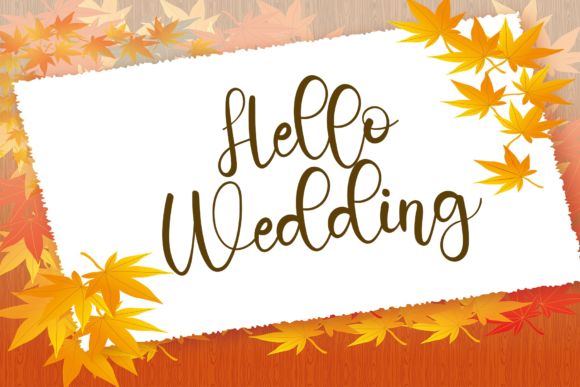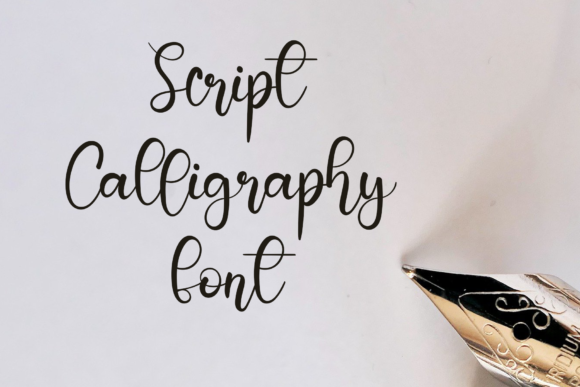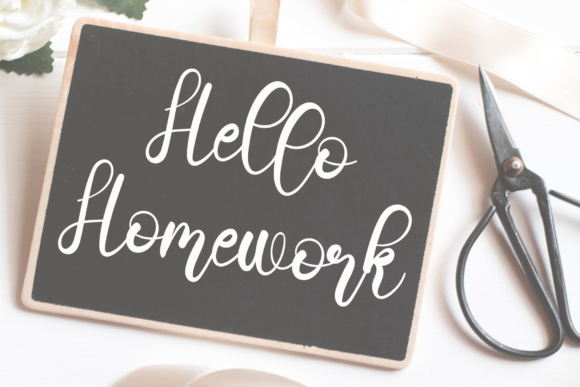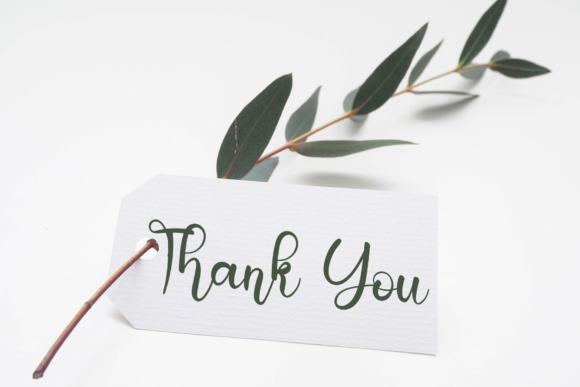
Gnome Font: Elevate Your Designs with a Touch of Elegance
Are you on the hunt for a font that exudes sophistication, elegance, and a dash of modern flair? Look no further than the Gnome Font. This exquisite handwritten font is meticulously crafted to capture the essence of calligraphic artistry while maintaining a fresh and contemporary feel. In this article, we’ll dive into the world of Gnome Font, exploring its features, benefits, and uses, making it a must-have for designers and crafters alike.
The Art of Gnome Font
Gnome Font is a masterclass in typographic design, boasting a unique blend of classic calligraphic influences and modern sensibilities. Its elegant strokes, precise letterforms, and flowing connections make it an instant favorite among designers and typography enthusiasts. Whether you’re working on a branding project, crafting a beautiful wedding invitation, or creating engaging social media content, Gnome Font is sure to elevate your designs to new heights.
What Makes Gnome Font Special?
- Exquisite Handwritten Style: Gnome Font’s handwritten aesthetic lends a personal touch to any project, making it perfect for designs that require a human touch.
- Classy Calligraphic Influences: The font’s calligraphic roots add a level of sophistication and elegance, ideal for high-end branding, luxury packaging, and refined editorial content.
- Contemporary and Fresh: Gnome Font’s modern twist ensures it feels fresh and relevant, making it suitable for a wide range of applications, from digital media to print materials.
- Versatile and Adaptable: With its clear and legible design, Gnome Font can be used in various contexts, including headings, body text, and even display text.
Gnome Font offers numerous benefits for designers and crafters, including:
- Time-Saving: With Gnome Font, you can create stunning designs quickly and efficiently, thanks to its high-quality and versatile nature.
- Consistency: The font’s consistent and precise design ensures your brand’s visual identity remains cohesive across various platforms.
- Emotional Connection: Gnome Font’s elegant and personal style helps create an emotional connection with your audience, making your designs more relatable and engaging.
Tips for Using Gnome Font
To get the most out of Gnome Font, consider the following tips:
- Pair it with Neutrals: Combine Gnome Font with neutral fonts, such as sans-serifs or serifs, to create a harmonious and balanced design.
- Experiment with Colors: Gnome Font looks stunning in a range of colors, from rich jewel tones to soft pastels. Don’t be afraid to experiment and find the perfect hue for your design.
- Play with Ligatures: Gnome Font features beautiful ligatures that can add an extra touch of elegance to your designs. Experiment with different combinations to find the perfect fit.